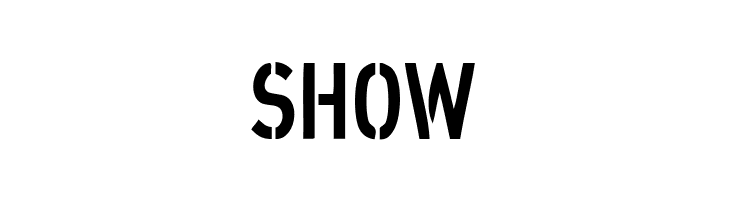
GERHAN Font
- Font: GERHAN
( Fonts by Lecter Johnson - doubletwostudios.tumblr.com )
A bold, military-inspired stencil font with a strong, geometric design.